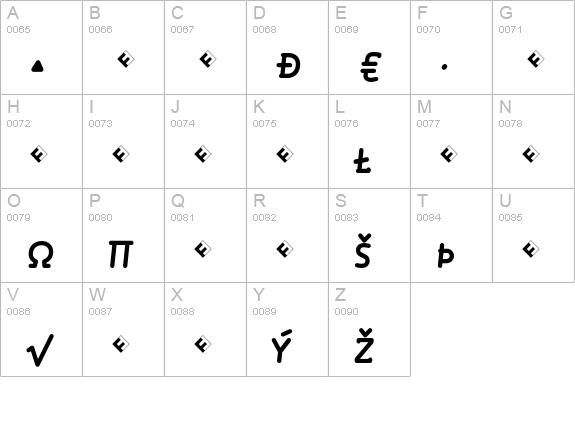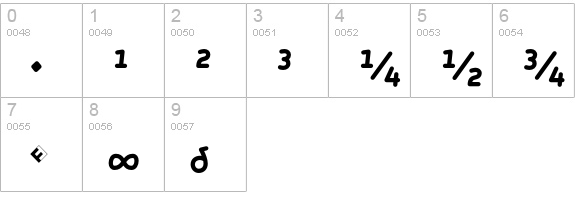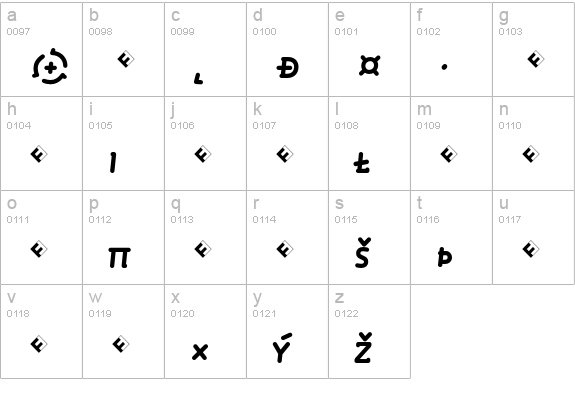
Roice-BoldItalicSCExpert Font Details
Roice-BoldItalicSCExpert font is a stylish and sophisticated typeface designed for those seeking a bold and elegant look. Its sleek italicized design adds a touch of flair to any project, making it perfect for headings, titles, and branding materials. With its expertly crafted bold strokes and distinctive slanted style, Roice-BoldItalicSCExpert font exudes a sense of modernity and professionalism. The best part about Roice-BoldItalicSCExpert font is that it is completely free to download at FontsMarket.com. This means that you can easily access this premium font without any cost, making it a valuable addition to your font collection. Whether you're working on a creative project or a professional design, Roice-BoldItalicSCExpert font is sure to elevate your work with its bold and italicized charm. Download it today and add a touch of sophistication to your designs.